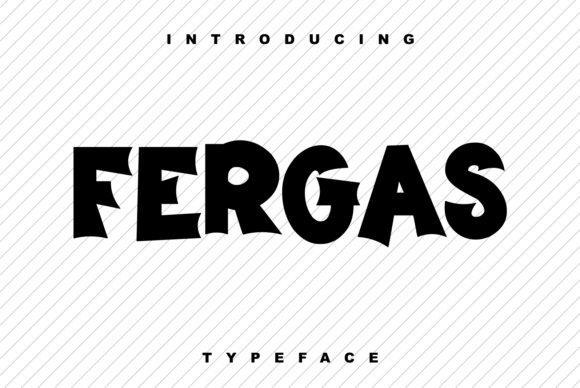
Introducing Fergas, the font that will capture your audience's attention and leave a lasting impression. This bold and captivating display font commands attention with its thick, striking letters, creating an unparalleled visual experience.
Fergas is the perfect choice for making your headlines, logos, posters, and social media graphics stand out from the crowd. Its simplicity and strength combine to create a font that is both eye-catching and versatile. Whether you're designing for a website, a print brochure, or a social media campaign, Fergas will elevate your creations to new heights.
With Fergas, you can express your ideas with confidence and creativity. Its thick, bold letters will make your words pop off the page, demanding attention and leaving a lasting impact on your audience.
Immerse yourself in the world of Fergas and discover the endless possibilities it offers. Transform your designs into captivating masterpieces that resonate with your audience. Let Fergas be your secret weapon for creating designs that leave an unforgettable impression.